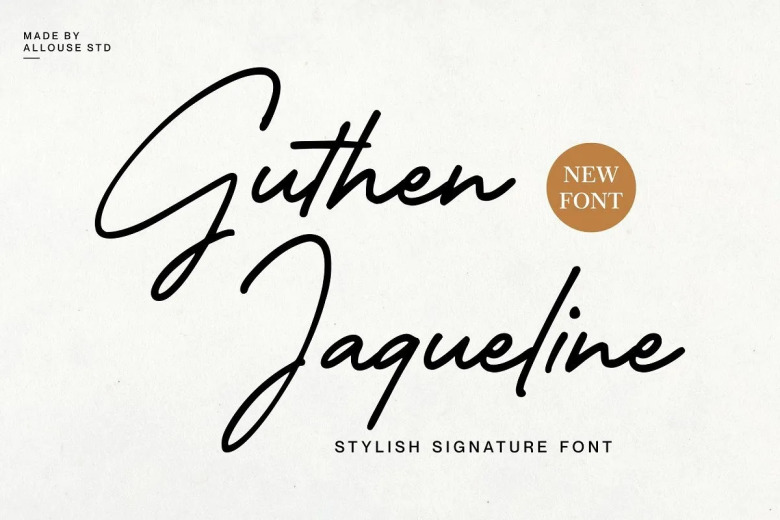
Guthen Jaqueline Font
Guthen Jaqueline a stylish signature font. For instance, Guthen Jaqueline is perfect for product packaging, branding project, magazine, social media, wedding or just used to express words above the background.
Guthen Jaqueline Signature Font